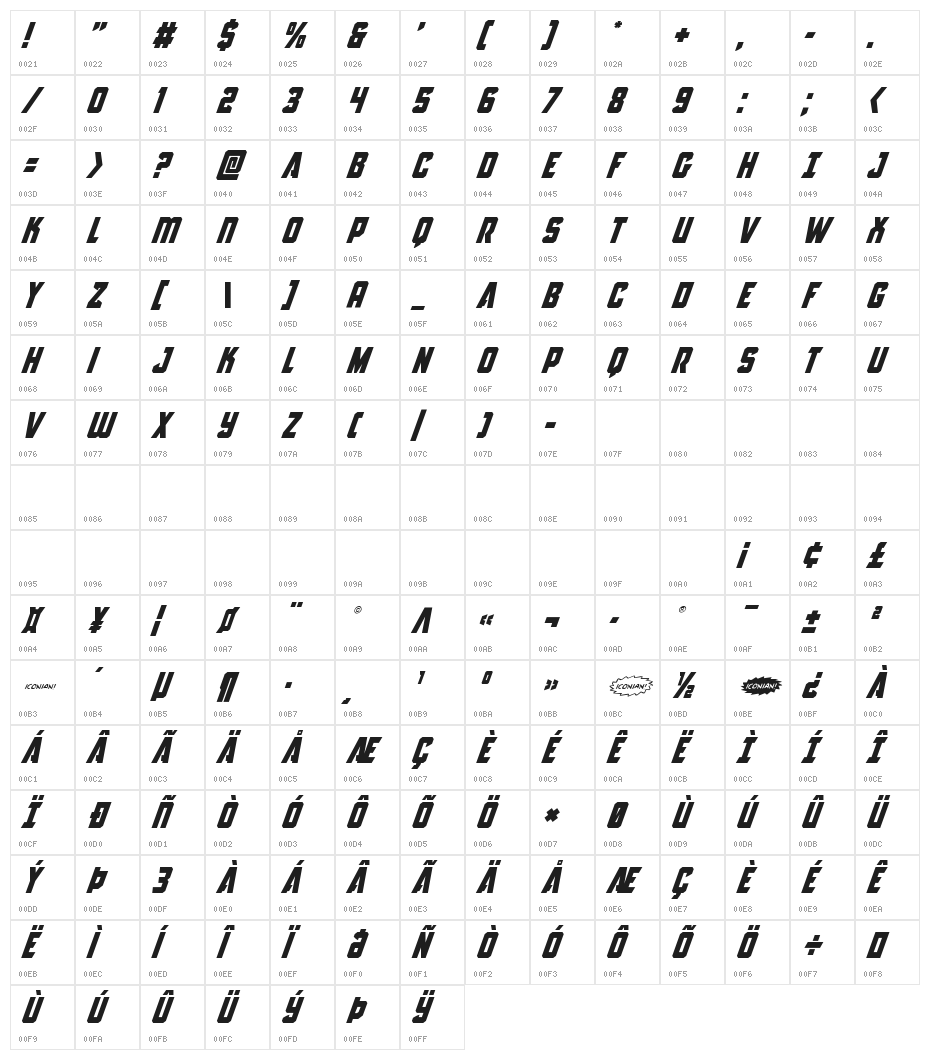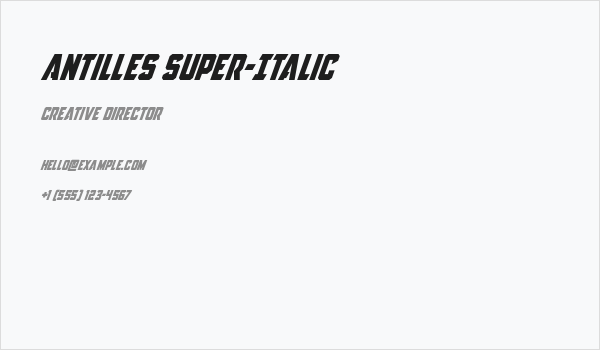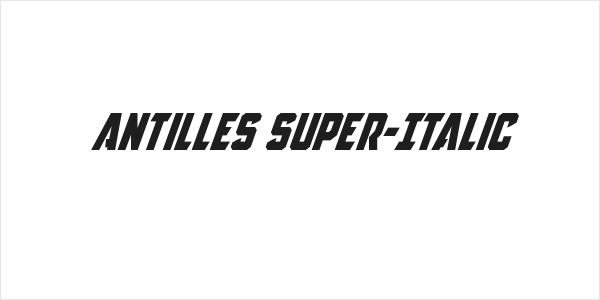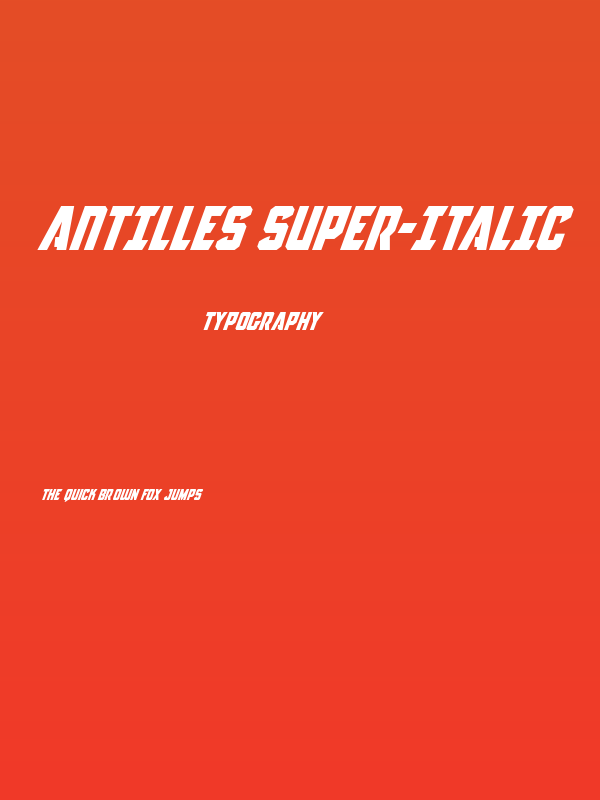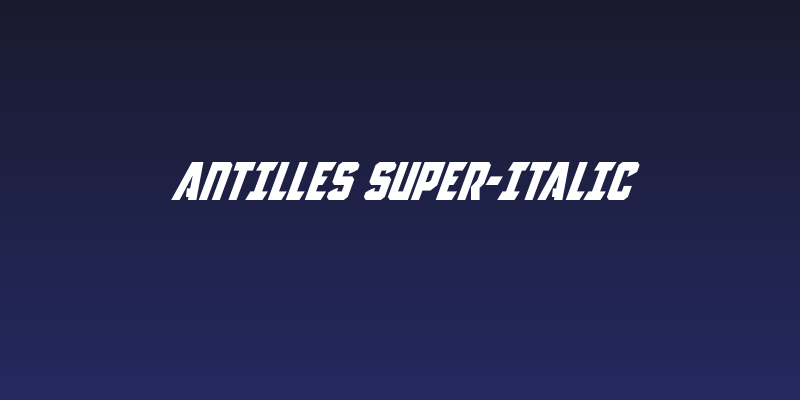
Antilles Super-Italic Font
Antilles Super-Italic Description
This font features a bold, italicized style with sharp, angular edges and a strong presence. The characters are slanted, giving a dynamic and energetic feel. The uppercase and lowercase letters maintain a consistent style, with a slight forward tilt that enhances the italic effect. The numbers and special characters follow the same bold and angular design, ensuring uniformity across all elements. This font is designed to stand out, making it suitable for attention-grabbing headlines and impactful designs.